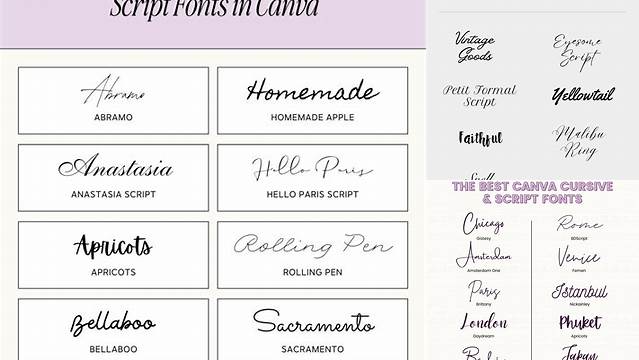
Bold Cursive Fonts In Canva: A Designer's Guide
Hey guys! Are you looking to spice up your Canva designs with some elegant and eye-catching fonts? You've come to the right place! In this guide, we're diving deep into the world of bold cursive fonts in Canva, showing you how to find them, use them, and make them look absolutely stunning. Let's get started!
1. Understanding Bold Cursive Typography
Bold cursive fonts in Canva are more than just pretty letters; they're a powerful tool for conveying emotion, style, and personality. Understanding the nuances of these fonts can significantly elevate your design game. Cursive fonts, by their nature, mimic handwriting, adding a personal and intimate touch to your projects. When combined with a bold weight, they command attention and exude confidence. The key is to use them judiciously – a little goes a long way! Think about the message you want to convey. Is it sophistication, playfulness, or maybe a touch of vintage charm? The right bold cursive font can help you nail that vibe. Also, consider the readability. While cursive fonts are beautiful, they can sometimes be challenging to read, especially in large blocks of text. Make sure your chosen font is legible, and don't be afraid to experiment with different sizes and spacing to enhance clarity.
2. Finding the Best Bold Cursive Fonts in Canva
Canva boasts a vast library of fonts, making the search for the perfect bold cursive fonts in Canva both exciting and potentially overwhelming. Fear not! Here's how to navigate the font jungle like a pro. Start by using Canva's font filters. You can filter by style (script, handwritten) and weight (bold). This will narrow down your options considerably. Pay attention to font pairings. Canva often suggests fonts that complement each other, which can be a great starting point for your design. Don't be afraid to venture beyond the suggested pairings, though! Experiment with different combinations to find something truly unique. Look for fonts that offer different weights and styles within the same family. This gives you more flexibility and ensures consistency in your design. And most importantly, always preview the font in your actual design before making a final decision. What looks good in the font selection panel might not work as well in your specific context. Trust your eye, and don't settle for anything less than perfect.
3. Using Bold Cursive Fonts for Logos
Logos are the face of a brand, and the font you choose plays a crucial role in shaping that identity. Bold cursive fonts in Canva can add a touch of elegance, personality, and memorability to your logo. However, they need to be used strategically. Simplicity is key. A logo should be easily recognizable and memorable, even at a small size. Avoid overly complex or ornate cursive fonts that might become illegible. Consider your target audience. Does a bold cursive font align with your brand's values and appeal to your ideal customer? If you're targeting a younger, more casual audience, a playful cursive font might be a good choice. If you're aiming for a more sophisticated and upscale market, opt for a classic and refined option. Ensure the font is scalable. Your logo will likely be used in various sizes, from business cards to billboards. Make sure the font remains clear and legible at all scales. Test it out on different backgrounds and in different colors to ensure it maintains its impact. A well-chosen bold cursive font can make your logo stand out and leave a lasting impression.
4. Bold Cursive Fonts for Invitations
Invitations are all about setting the tone for an event, and bold cursive fonts in Canva are perfect for creating a sense of elegance, excitement, or festivity. Whether you're designing wedding invitations, birthday invites, or party announcements, the right font can make all the difference. For formal events like weddings, consider classic and refined cursive fonts with a touch of boldness. These fonts exude sophistication and grace, setting the stage for a memorable occasion. For more casual events like birthday parties, you can opt for playful and whimsical cursive fonts. These fonts add a touch of fun and excitement, creating a vibrant and inviting atmosphere. Pay attention to the legibility of the font. Invitations typically contain important information like date, time, and location. Make sure this information is easily readable, even with a cursive font. Use a complementary font for the body text to enhance readability. Experiment with different colors and textures to create a visually appealing invitation. Bold cursive fonts often look stunning when paired with metallic accents or elegant backgrounds.
5. Pairing Bold Cursive with Sans-Serif Fonts
One of the golden rules of typography is to create contrast. Pairing bold cursive fonts in Canva with sans-serif fonts is a classic way to achieve this. The combination of the elegant curves of cursive with the clean lines of sans-serif creates a visually appealing and balanced design. Use the bold cursive font for headings and titles to draw attention and add personality. Then, use a clean sans-serif font for the body text to ensure readability. Choose sans-serif fonts that complement the cursive font in terms of weight and style. A heavier sans-serif font can balance out a delicate cursive font, while a lighter sans-serif font can create a more airy and elegant feel. Experiment with different font sizes and spacing to create visual hierarchy and enhance readability. The goal is to create a design that is both beautiful and functional. Don't be afraid to break the rules and experiment with different combinations. The key is to find a pairing that works for your specific project and reflects your unique style.
6. Creating Emphasis with Bold Cursive
Bold cursive fonts in Canva are fantastic for creating emphasis and drawing attention to key elements in your design. They can be used to highlight important words, phrases, or calls to action. Use them sparingly. Overusing bold cursive can diminish its impact and make your design look cluttered. Instead, focus on using it strategically to highlight the most important elements. Consider the context. The type of emphasis you want to create will depend on the overall tone and style of your design. A bold, dramatic cursive font can create a sense of urgency or excitement, while a more subtle and elegant cursive font can create a sense of sophistication or refinement. Experiment with different sizes, colors, and placements to find the most effective way to use bold cursive for emphasis. The goal is to create a visual hierarchy that guides the viewer's eye and highlights the most important information. Don't be afraid to get creative and experiment with different techniques. The possibilities are endless!
7. Bold Cursive Fonts for Social Media Graphics
In the fast-paced world of social media, grabbing attention is crucial. Bold cursive fonts in Canva can help your graphics stand out from the crowd and make a lasting impression. Use them to create eye-catching headlines, captions, and calls to action. Choose fonts that are legible and readable, even on small screens. Social media users are often scrolling through their feeds quickly, so it's important to make sure your message is clear and concise. Consider your brand's personality. The font you choose should reflect your brand's values and appeal to your target audience. A playful cursive font might be a good choice for a fun and casual brand, while a more sophisticated cursive font might be better suited for a more serious and professional brand. Use them in conjunction with other design elements, such as images, icons, and colors, to create a cohesive and visually appealing graphic. The goal is to create a design that is both engaging and informative. Don't be afraid to experiment with different styles and techniques. The key is to find a look that is unique and memorable.
8. Adding Flourishes to Bold Cursive Fonts
Flourishes are decorative strokes that can be added to bold cursive fonts in Canva to enhance their elegance and visual appeal. They can add a touch of whimsy, sophistication, or vintage charm to your designs. Use them sparingly. Overusing flourishes can make your design look cluttered and overwhelming. Instead, focus on adding them to key elements, such as the beginning or end of a word or phrase. Consider the overall style of your design. Flourishes should complement the font and the other design elements. A simple and understated flourish can add a touch of elegance, while a more elaborate flourish can create a sense of drama and excitement. Experiment with different types of flourishes to find the perfect look for your project. There are countless options available, from simple swirls to intricate floral designs. Don't be afraid to get creative and experiment with different techniques. The possibilities are endless!
9. Bold Cursive Fonts and Color Psychology
Color and typography work hand-in-hand to create a powerful visual message. When using bold cursive fonts in Canva, consider the psychological impact of the colors you choose. Certain colors evoke specific emotions and associations, so it's important to select colors that align with your brand's message and target audience. For example, red is often associated with passion, excitement, and energy, while blue is often associated with trust, stability, and calmness. Use color to create contrast and visual interest. A bold cursive font in a vibrant color can draw attention and create a sense of excitement, while a more subdued color can create a sense of sophistication and elegance. Consider the background color. The font color should contrast with the background color to ensure readability. A light font on a dark background or a dark font on a light background is generally the most effective approach. Experiment with different color combinations to find the perfect look for your project. Don't be afraid to get creative and try something new!
10. Mastering Kerning with Bold Cursive Fonts
Kerning is the adjustment of the space between individual letters to create a visually pleasing and balanced appearance. It's an essential skill for any designer, especially when working with bold cursive fonts in Canva. Cursive fonts often have unique letterforms that require careful kerning to ensure readability and visual harmony. Pay attention to the space between each letter. The goal is to create a consistent and even flow, avoiding any awkward gaps or overlaps. Use Canva's kerning tools to adjust the spacing between letters. You can increase or decrease the spacing to improve readability and visual appeal. Zoom in on your design to get a closer look at the kerning. It's often easier to identify subtle spacing issues when you're viewing the design at a larger scale. Don't be afraid to experiment and make adjustments until you achieve the perfect look. Kerning is an art, and it takes practice to master.
11. Bold Cursive Fonts for Watermarks
Protecting your intellectual property is crucial, and bold cursive fonts in Canva can be used to create stylish and effective watermarks. A watermark is a subtle image or text that is superimposed on your artwork to prevent unauthorized use. Choose a font that is legible and distinctive. The watermark should be easily recognizable but not so overpowering that it detracts from the artwork itself. Use a semi-transparent color to make the watermark less obtrusive. A subtle watermark is more effective than a bold and distracting one. Position the watermark strategically on the artwork. It should be placed in a location that is difficult to remove or crop out. Experiment with different sizes and placements to find the most effective approach. The goal is to protect your artwork without compromising its visual appeal.
12. Using Bold Cursive Fonts in Presentations
Presentations can be brought to life with the right typography. Bold cursive fonts in Canva can add a touch of personality and flair to your slides, making them more engaging and memorable. Use them sparingly for headings and subheadings to draw attention and create visual interest. Avoid using cursive fonts for body text, as they can be difficult to read on a screen. Choose fonts that are legible and readable from a distance. Consider the size of the room and the resolution of the projector. Use color and contrast to enhance readability. A light font on a dark background or a dark font on a light background is generally the most effective approach. Keep your slides clean and uncluttered. Avoid using too many fonts or design elements, as this can distract from your message. Focus on delivering clear and concise information in a visually appealing way.
13. Bold Cursive Fonts for Book Covers
The book cover is the first thing potential readers see, so it needs to make a strong impression. Bold cursive fonts in Canva can add a touch of elegance, mystery, or romance to your book cover, enticing readers to pick up your book and learn more. Choose a font that reflects the genre and tone of your book. A thriller might call for a bold and dramatic cursive font, while a romance novel might benefit from a more delicate and flowing font. Consider the target audience. The font you choose should appeal to your ideal reader. Use color and imagery to create a visually compelling design. The font should complement the other design elements and create a cohesive and harmonious look. Make sure the title is legible and readable, even at a small size. The book cover should be easily recognizable and memorable.
14. Creating Vintage Designs with Bold Cursive Fonts
Bold cursive fonts in Canva are perfect for creating vintage-inspired designs. They evoke a sense of nostalgia and can transport viewers back in time. Look for fonts that have a classic or retro feel. There are many cursive fonts that are specifically designed to mimic the look of vintage handwriting. Use muted colors and textures to enhance the vintage aesthetic. Sepia tones, distressed paper textures, and aged effects can all contribute to a vintage look. Incorporate other vintage design elements, such as old photographs, illustrations, and ornaments. Pay attention to the details. Small touches, such as adding a subtle drop shadow or a vintage-inspired border, can make a big difference. Experiment with different techniques to create a unique and authentic vintage design.
15. Bold Cursive Fonts and Branding Consistency
Maintaining a consistent brand identity is crucial for building recognition and trust. When using bold cursive fonts in Canva, make sure they align with your brand's overall style and personality. Use the same fonts consistently across all of your marketing materials, including your website, social media graphics, and print collateral. Choose fonts that reflect your brand's values and appeal to your target audience. Create a brand style guide to document your font choices, color palette, and other design elements. This will help ensure consistency across all of your marketing efforts. Regularly review your branding materials to ensure they are still aligned with your brand's overall strategy. A consistent brand identity will help you stand out from the competition and build a loyal customer base.
16. Optimizing Bold Cursive Fonts for Print
When using bold cursive fonts in Canva for print projects, there are a few things to keep in mind to ensure optimal results. Choose fonts that are designed for print. These fonts typically have thicker strokes and more defined details, which will help them reproduce well on paper. Use a high resolution for your artwork. A resolution of 300 DPI is generally recommended for print projects. Proofread your artwork carefully before sending it to the printer. Check for any typos, errors, or alignment issues. Work with a reputable printer to ensure high-quality printing. A professional printer will be able to advise you on the best paper stock and printing techniques for your project. By following these tips, you can ensure that your print projects look their best.
17. Pairing Bold Cursive with Serif Fonts
While sans-serif fonts are a popular choice for pairing with cursive fonts, serif fonts can also create a beautiful and sophisticated look. The key is to choose a serif font that complements the cursive font in terms of weight and style. A classic serif font like Times New Roman can pair well with a more traditional cursive font, while a more modern serif font like Playfair Display can pair well with a more contemporary cursive font. Use the serif font for the body text and the bold cursive font for headings and subheadings. This will create a visual hierarchy and make your design more readable. Experiment with different font sizes and spacing to create a balanced and harmonious look. Don't be afraid to try different combinations until you find the perfect pairing for your project.
18. Using Bold Cursive Fonts for Business Cards
Your business card is often the first impression you make on potential clients, so it's important to make it memorable. Bold cursive fonts in Canva can add a touch of personality and sophistication to your business card. Use them sparingly for your name, title, or company name. Avoid using cursive fonts for contact information, as it can be difficult to read. Choose a font that reflects your brand's style and personality. A classic cursive font might be appropriate for a more traditional business, while a more modern cursive font might be better suited for a more creative business. Keep the design clean and uncluttered. Avoid using too many fonts or design elements, as this can make your business card look overwhelming. Make sure your contact information is easy to read. Use a clear and legible font, and provide plenty of white space.
19. Bold Cursive Fonts in Motion Graphics
Motion graphics can be brought to life with the right typography. Bold cursive fonts in Canva can add a touch of elegance and flair to your animations, making them more engaging and memorable. Use them sparingly for titles, credits, or callouts. Avoid using cursive fonts for long blocks of text, as they can be difficult to read in motion. Choose fonts that are legible and readable on a screen. Consider the speed and movement of the animation. Use animation effects to enhance the font's visual appeal. Fade-ins, slide-ins, and other animation effects can add a dynamic and engaging touch. Experiment with different techniques to create a unique and eye-catching motion graphic.
20. Bold Cursive Fonts and Visual Hierarchy
Visual hierarchy is the arrangement of design elements in a way that guides the viewer's eye and highlights the most important information. Bold cursive fonts in Canva can be used to create a strong visual hierarchy in your designs. Use them for headings and subheadings to draw attention and create a clear distinction between different sections of your design. Use different font sizes and weights to create a visual hierarchy. The most important elements should be the largest and boldest. Use color and contrast to highlight key information. A bold cursive font in a vibrant color can draw attention and create a sense of excitement. Use white space to create visual separation and improve readability. A well-designed visual hierarchy will make your designs more effective and engaging.
21. Bold Cursive Fonts for T-Shirt Designs
T-shirt designs offer a unique canvas for creativity, and bold cursive fonts in Canva can add a personal and stylish touch to your apparel. They're great for quotes, names, or custom messages. Choose fonts that are legible and readable, even when printed on fabric. Consider the fabric type and printing method. Some fonts may not reproduce well on certain fabrics or with certain printing techniques. Use a high resolution for your artwork to ensure crisp and clear printing. Pay attention to the placement of the font on the t-shirt. Consider the overall design and the wearer's body shape. Experiment with different colors and effects to create a unique and eye-catching design. A well-designed t-shirt can be a powerful form of self-expression.
22. Creating Monograms with Bold Cursive Fonts
Monograms are a classic and elegant way to personalize items, and bold cursive fonts in Canva are perfect for creating beautiful and unique monograms. Choose fonts that are elegant and flowing. The letters should complement each other and create a harmonious design. Experiment with different letter combinations and arrangements. Consider the order of the letters and how they interact with each other. Use Canva's design tools to customize the monogram to your liking. You can adjust the size, spacing, and color of the letters. Add embellishments, such as flourishes or frames, to enhance the monogram's visual appeal. A well-designed monogram can add a touch of sophistication and personalization to any item.
23. Bold Cursive Fonts for Certificates and Awards
Certificates and awards are important documents that recognize achievement, and bold cursive fonts in Canva can add a touch of elegance and formality to these documents. Choose fonts that are classic and refined. They should convey a sense of authority and tradition. Use a complementary font for the body text to ensure readability. Consider the overall design of the certificate or award. It should be clean, professional, and visually appealing. Use high-quality paper and printing to create a lasting impression. A well-designed certificate or award can be a valuable symbol of achievement.
24. Using Bold Cursive Fonts in Newsletters
Newsletters are a great way to stay in touch with your audience, and bold cursive fonts in Canva can add a personal and engaging touch to your email designs. Use them sparingly for headings and subheadings to draw attention and create visual interest. Avoid using cursive fonts for long blocks of text, as they can be difficult to read on a screen. Choose fonts that are legible and readable on a variety of devices. Consider the overall design of your newsletter. It should be clean, professional, and visually appealing. Use images and other design elements to break up the text and make the newsletter more engaging. Include a clear call to action to encourage readers to take the next step. A well-designed newsletter can be a valuable tool for building relationships with your audience.
25. Bold Cursive Fonts and Readability Considerations
While bold cursive fonts in Canva can add a touch of style and personality to your designs, it's important to consider readability. Cursive fonts can sometimes be difficult to read, especially in large blocks of text or on small screens. Choose fonts that are legible and readable. Avoid overly ornate or complex cursive fonts. Use a large enough font size to ensure readability. Consider the contrast between the font color and the background color. Use white space to create visual separation and improve readability. Test your designs on a variety of devices to ensure they are readable. Prioritize readability over style. The most beautiful font is useless if it can't be easily read.
26. Creating Stickers with Bold Cursive Fonts
Stickers are a fun and versatile way to express yourself, and bold cursive fonts in Canva can add a personal and stylish touch to your sticker designs. Choose fonts that are legible and readable, even at a small size. Consider the shape and size of the sticker. Design the font to fit within the sticker's boundaries. Use Canva's design tools to customize the sticker to your liking. You can adjust the size, spacing, and color of the letters. Add embellishments, such as flourishes or frames, to enhance the sticker's visual appeal. Use high-quality printing to ensure your stickers look their best. A well-designed sticker can be a fun and creative way to express your personality.
27. Bold Cursive Fonts for Website Headers
Website headers are a crucial part of your online presence, and bold cursive fonts in Canva can add a touch of personality and style to your website's design. They can make a lasting first impression. Use them sparingly for your website's name or tagline. Avoid using cursive fonts for navigation menus or other essential website elements. Choose fonts that are legible and readable on a screen. Consider the overall design of your website. The font should complement the other design elements and create a cohesive and harmonious look. Make sure the font is responsive and looks good on all devices. A well-designed website header can help you attract visitors and build your brand.
28. Using Bold Cursive Fonts for Thank You Notes
Thank you notes are a thoughtful way to show your appreciation, and bold cursive fonts in Canva can add a personal and elegant touch to your handwritten notes. Choose fonts that are elegant and flowing. They should convey a sense of sincerity and gratitude. Use a high-quality pen and paper to create a lasting impression. Take the time to write a heartfelt message. Express your sincere appreciation for the recipient's kindness. A well-written thank you note can make a lasting impression and strengthen your relationships.
29. Bold Cursive Fonts and Cultural Considerations
When using bold cursive fonts in Canva, it's important to consider cultural nuances. Certain fonts may have different connotations in different cultures. Research the cultural significance of your chosen font before using it in your designs. Be mindful of the language you're using. Cursive fonts may not be suitable for all languages. Consider the target audience for your designs. Choose fonts that are appropriate for their cultural background. By being mindful of cultural considerations, you can ensure that your designs are respectful and effective.
30. Future Trends in Bold Cursive Typography
The world of typography is constantly evolving, and bold cursive fonts in Canva are no exception. Here are some future trends to watch out for: More variable fonts that offer a wider range of weights and styles. Increased use of animation and motion graphics with cursive fonts. Greater integration of cursive fonts with other design elements, such as illustrations and photography. A renewed focus on readability and accessibility, even with stylized fonts. Experimentation with new and innovative cursive font designs. By staying informed about future trends, you can keep your designs fresh and relevant.
So there you have it, guys! Everything you need to know about using bold cursive fonts in Canva to create stunning designs. Now go forth and make some magic!